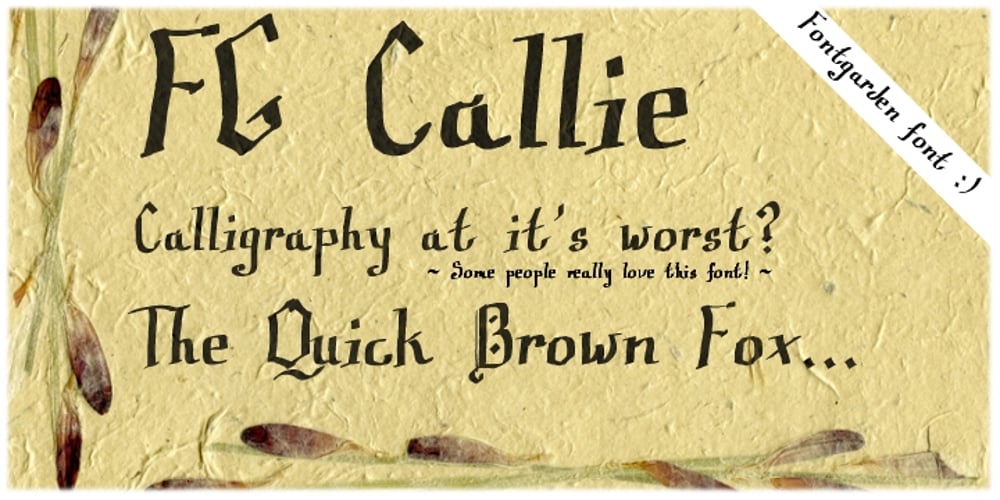
FG Callie
FG Callie font
FG Callie Font Family was designed by published by YOFF. FG Callie contains 1 styles and family package options. FG Callie is a Calligraphy font, but it shouldn’t be taken too seriously 🙂 With curly ends on the descenders and her not so straight lines it’s more of a fun font.